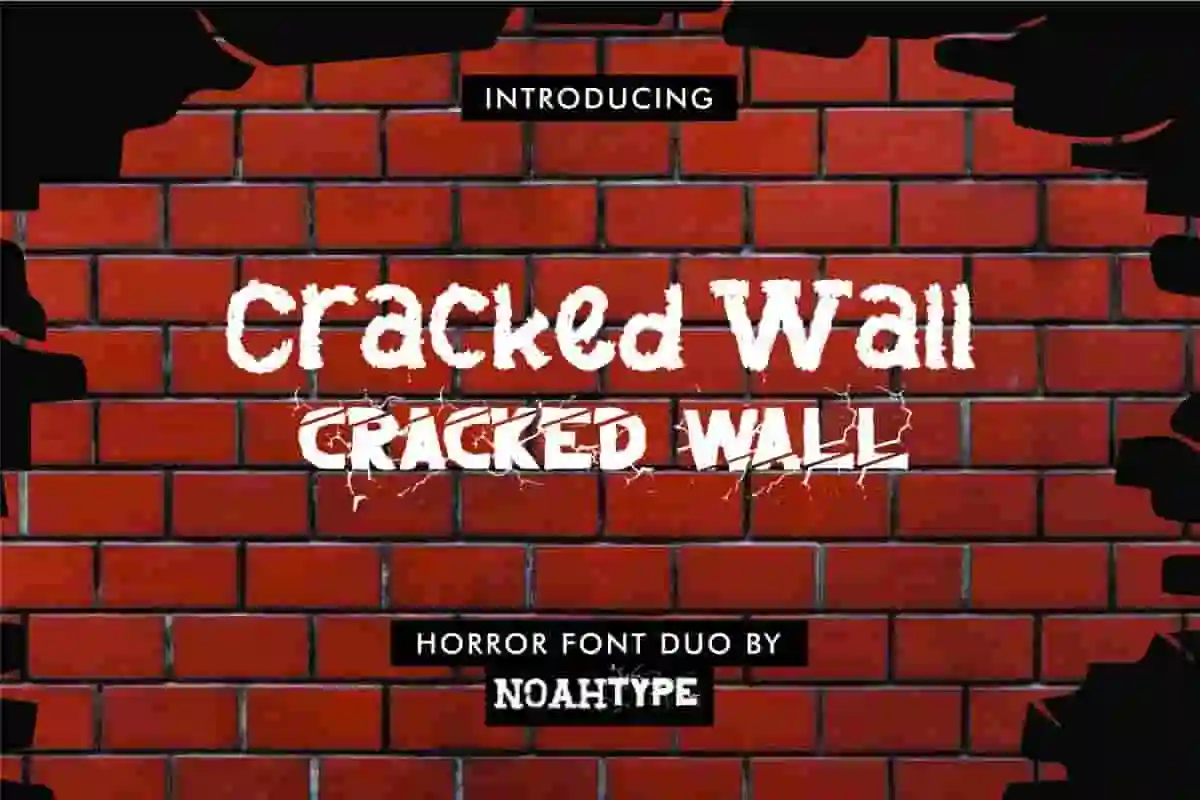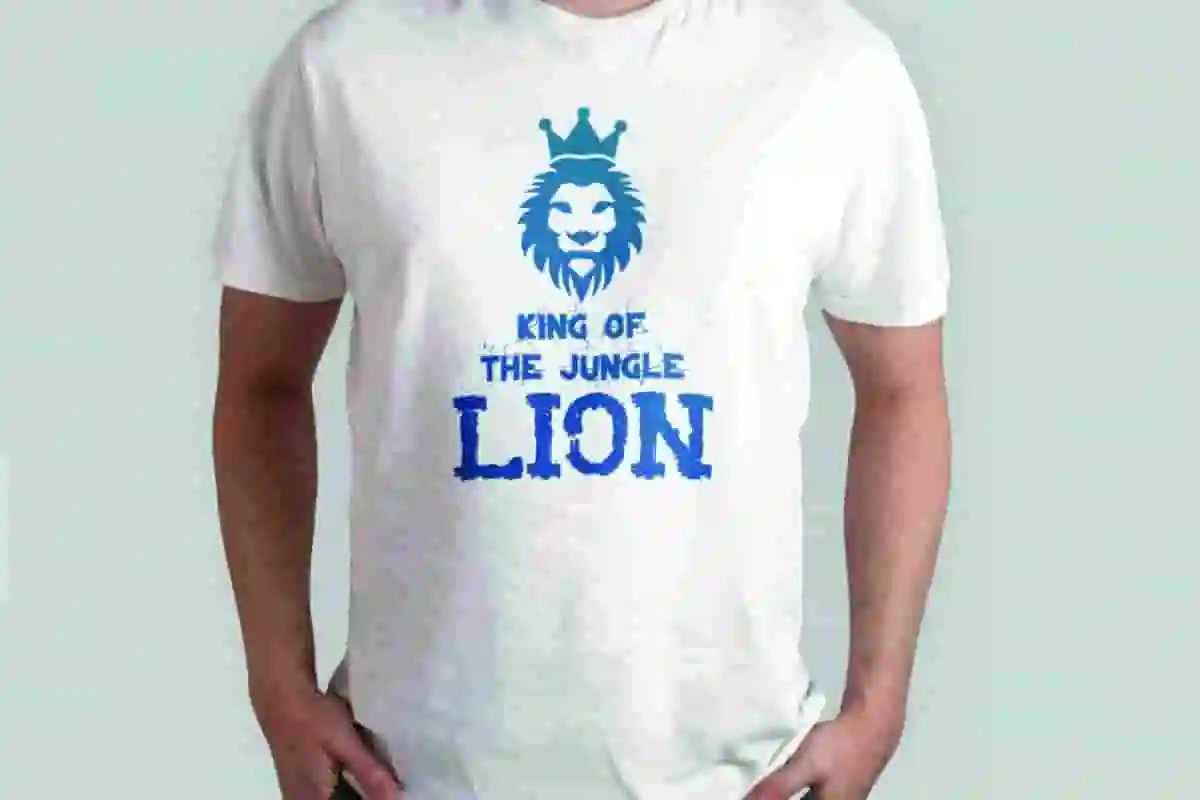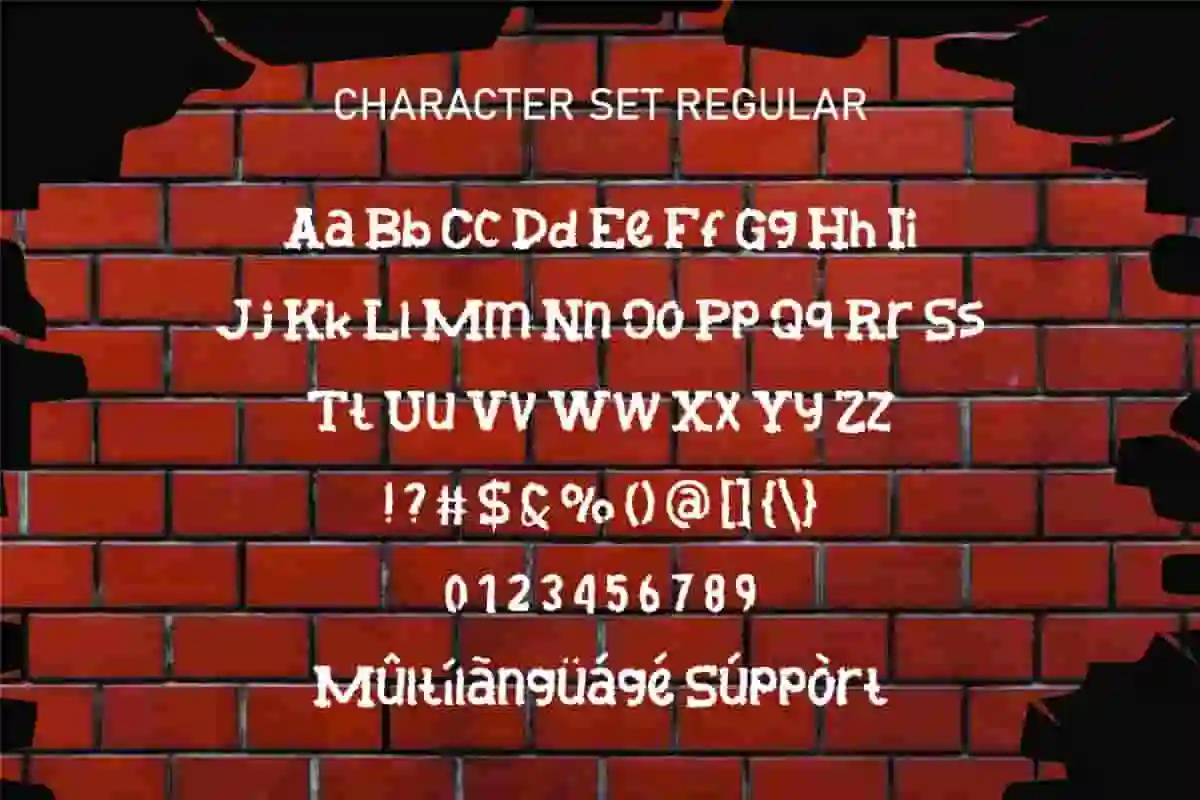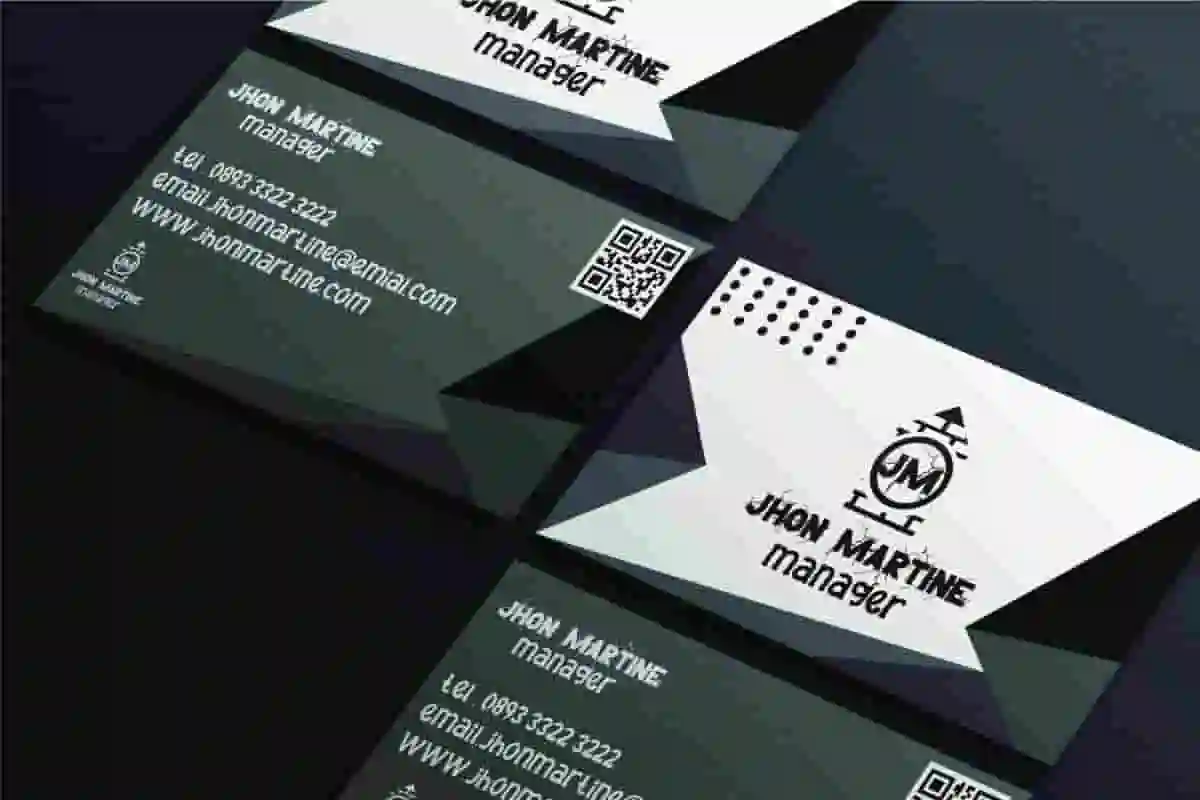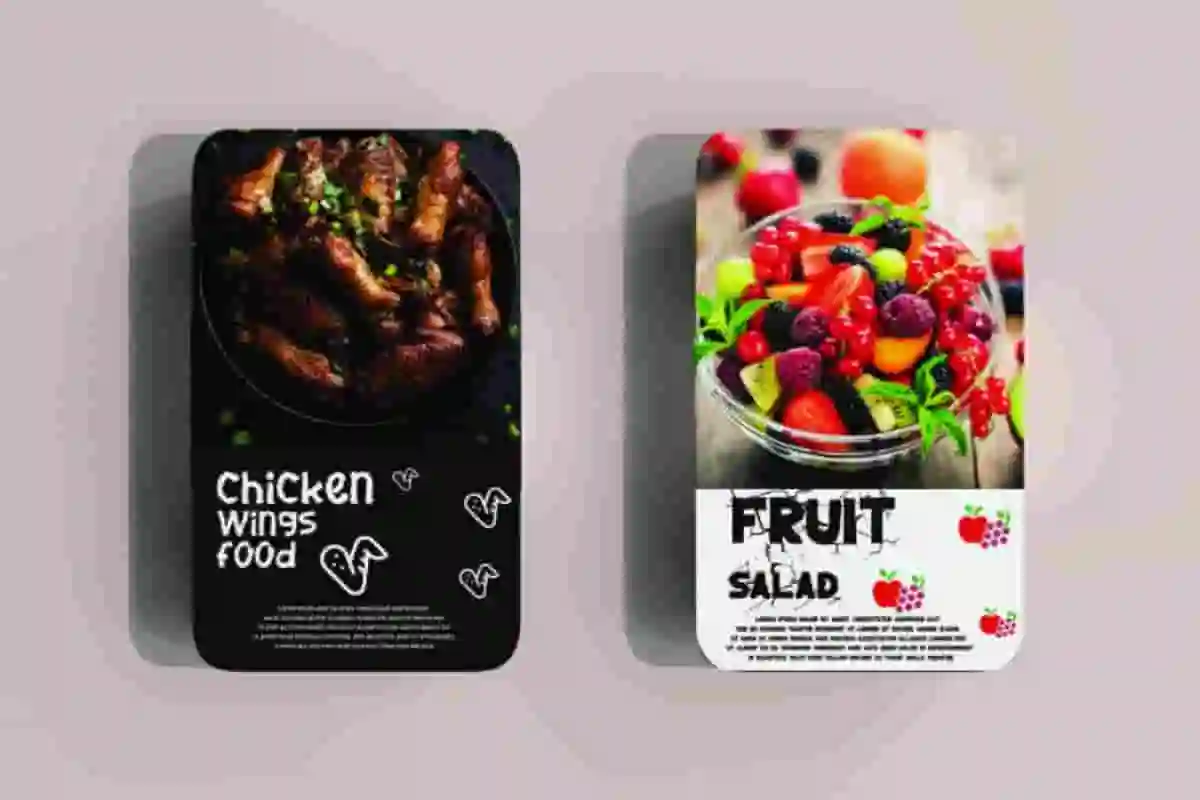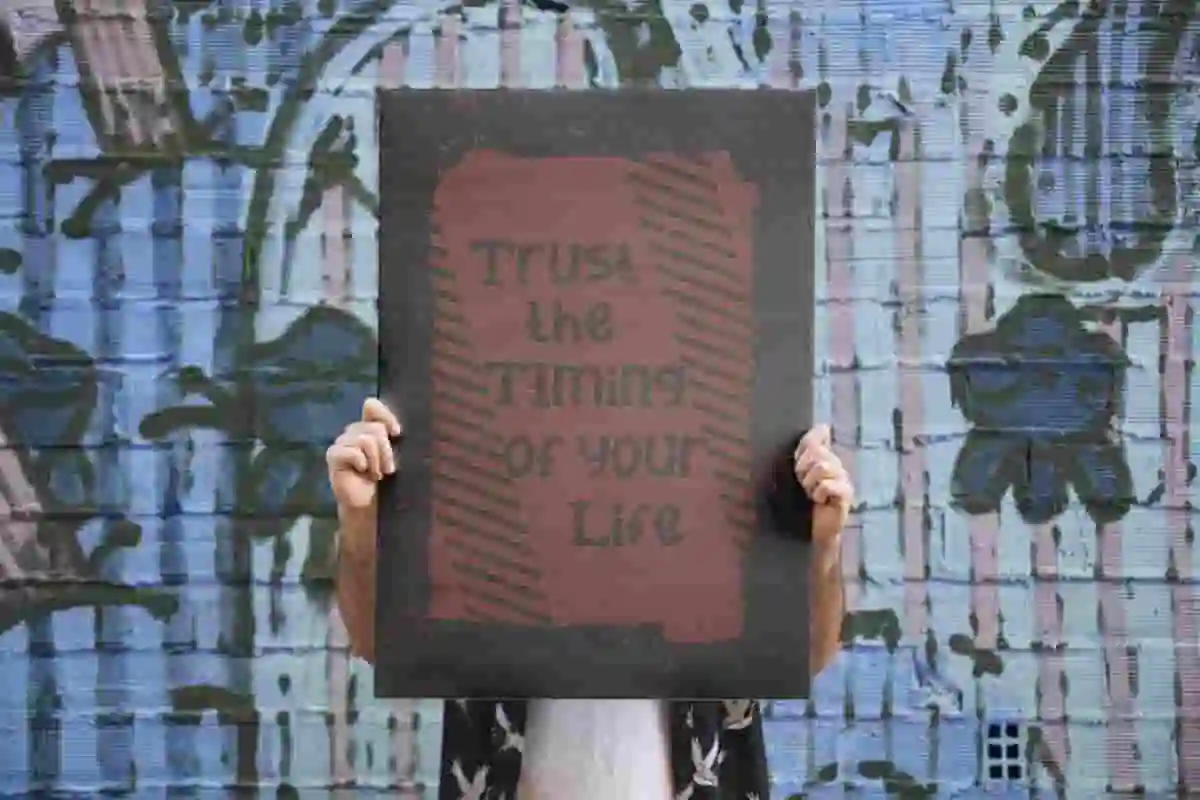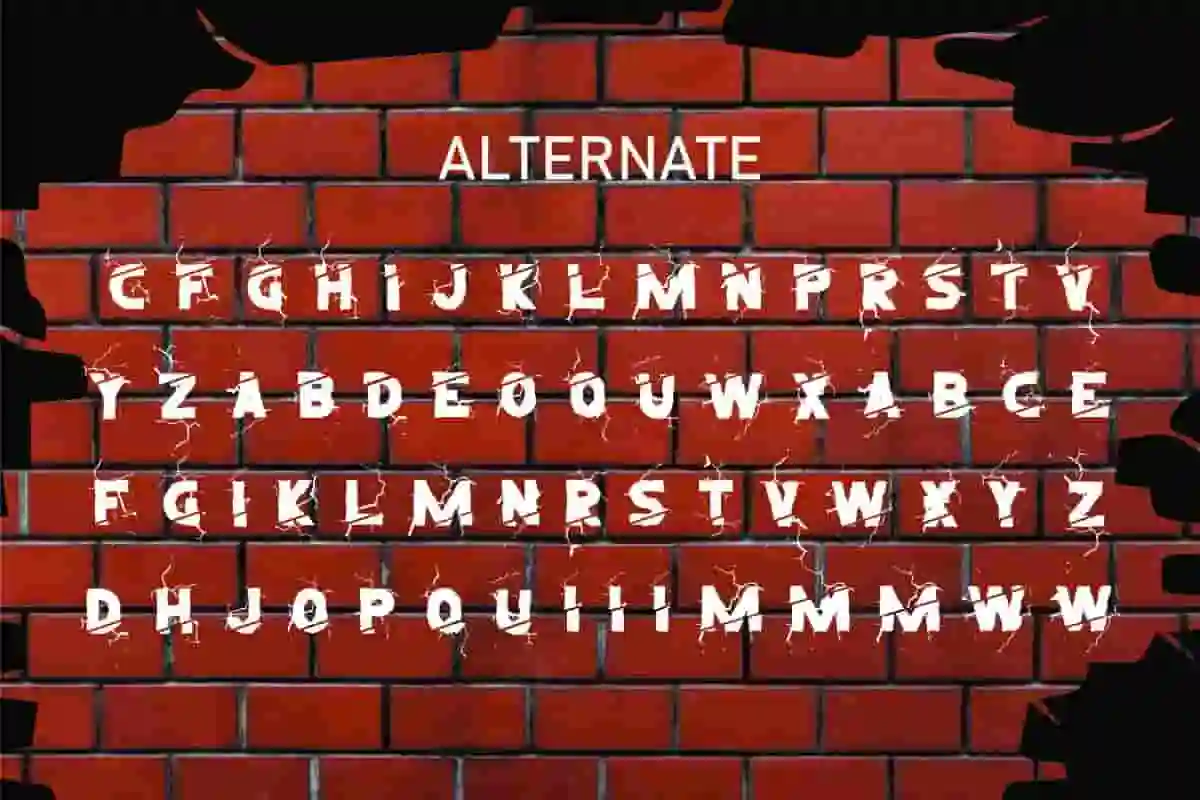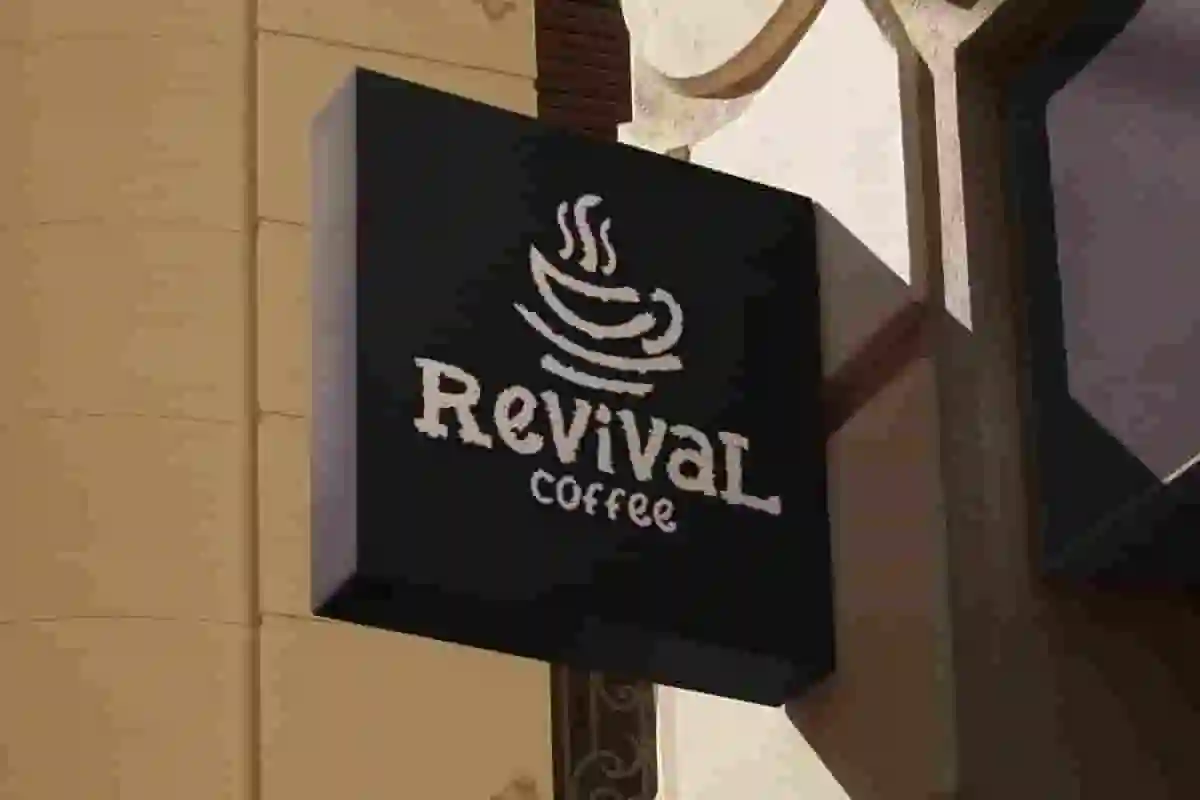
Cracked Wall Font is a special display font with two different options : textured and cracked. The characters of these two fonts look gripping at the same time with moss and root variation, and still easy to read. It will be great for any industry, such as accessories, café, event organizer, fashion, film, game, music, printing, restaurant, sport, etc.
Both styles of Cracked Wall Font include a full set of Uppercase and Lowercase Characters, Numbers and Punctuation. However, the difference lies in the Character set Root, which is made ALL CAPS in Upper and Lowercase letters. Also it contains alternate character to make your designs standout. It will be amazing for many projects, such as business card, custom design, poster, product packaging, quotes, signage, website, and any project that requires a horror look!